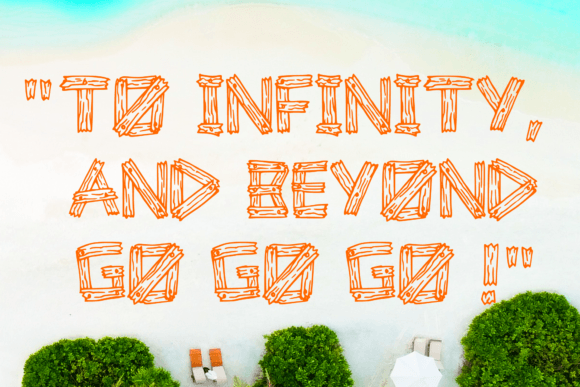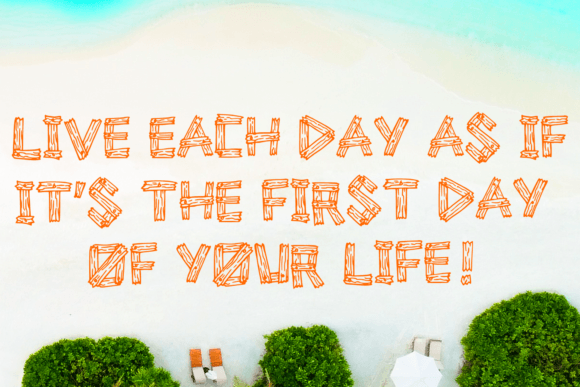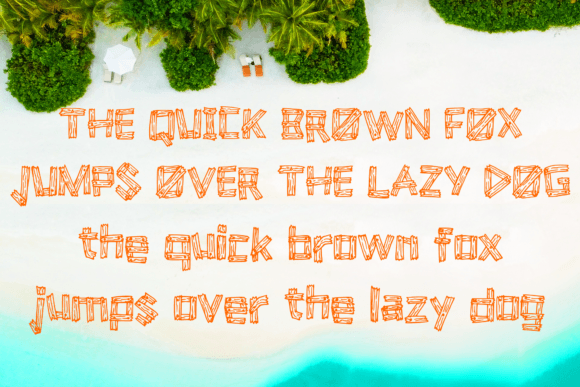
The Perfect Blend of Fun and Casual: Unleashing the Power of Beach Wood Font
Who hasn’t been inspired by the feeling of sand between their toes and the sound of waves crashing against the shore? For many creatives, the beach is more than just a relaxing getaway – it’s a spark that sets their imagination ablaze. And what better way to capture that carefree spirit than with a font that embodies the warmth and charm of driftwood?
Introducing Beach Wood Font, a handdrawn display font that’s as versatile as it is visually stunning. This delightful font is perfect for designers looking to add a casual touch to their projects, from t-shirts and kids’ book designs to greeting cards and posters. Its wooden look and feel make it an instant favorite among creatives, and its incredible adaptability ensures it’ll never go out of style.
Key Features of Beach Wood Font
- Unique Characteristics: Beach Wood Font features a distressed, weathered look with a mix of serif and sans-serif elements, giving it a unique, beachy vibe.
Beach Wood Font Review
I recently had the chance to work with the Beach Wood Font and here’s my honest take on it.
- The Beach Wood Font has a unique, hand-carved feel that adds a nice touch to any design project.
- The font is highly customizable, allowing you to adjust the spacing and weight to fit your specific needs.
- The font is available in a range of styles, from casual to formal, making it suitable for a variety of projects.
- The font can be a bit difficult to read at small font sizes, which may limit its use in certain applications.
- The font is not ideal for use in body text, as it can be quite ornate and may be distracting to readers.
- The font may not be suitable for projects that require a more modern or minimalist aesthetic.
Overall, I think the Beach Wood Font is a great addition to any designer’s toolkit. While it may have some limitations, its unique character and high level of customization make it a valuable resource for designers looking to add a touch of personality to their projects.
For the most effective use of Beach Wood Font, use it for titles and headings in designs that require a natural, beachy feel.
Beach-themed marketing materials, such as brochures and flyers.
Photography captions and photo booth signs.